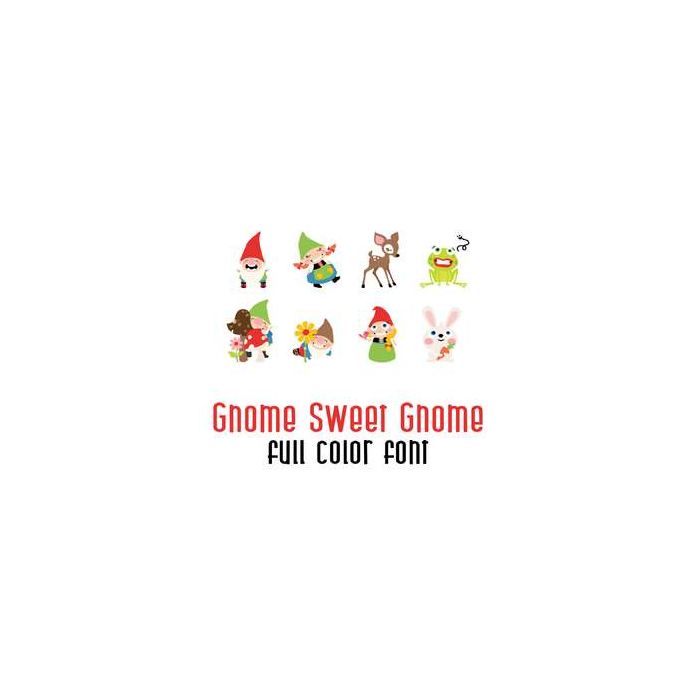
This adorable full color doodlebat font features adorable gnomes doing their gnome things. Perfect for cards, crafts, gifts, decor, scrap book pages, planner stickers and more!